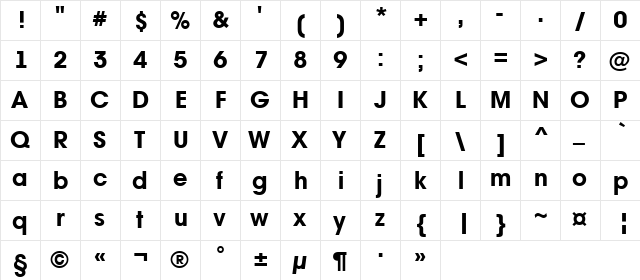
a_AvanteBs ExtraBold
Design Context for a_AvanteBs Typeface
a_AvanteBs takes a measured approach to typography — its balanced proportions and neutral character make it a reliable workhorse for both digital and print work. The heavy weight commands attention and anchors typographic hierarchies.